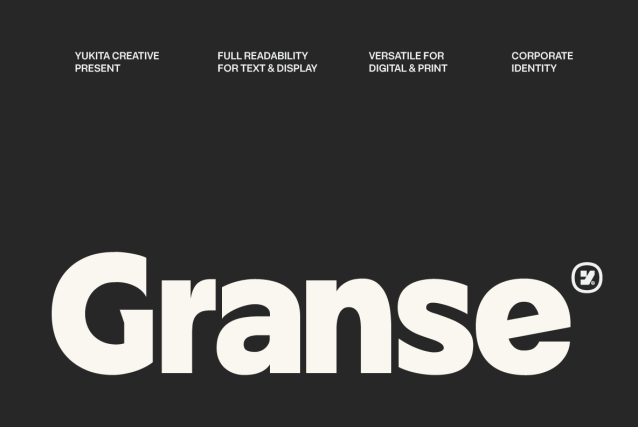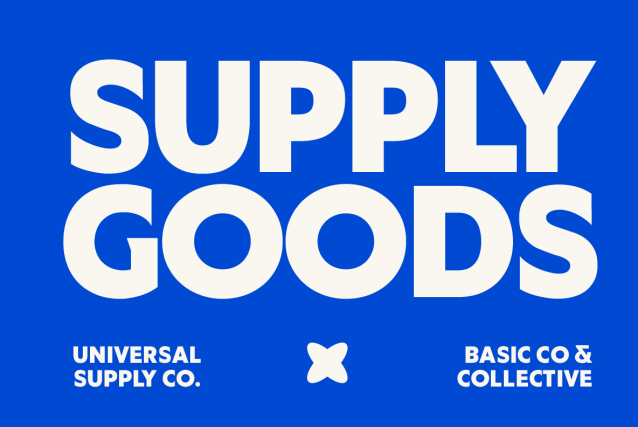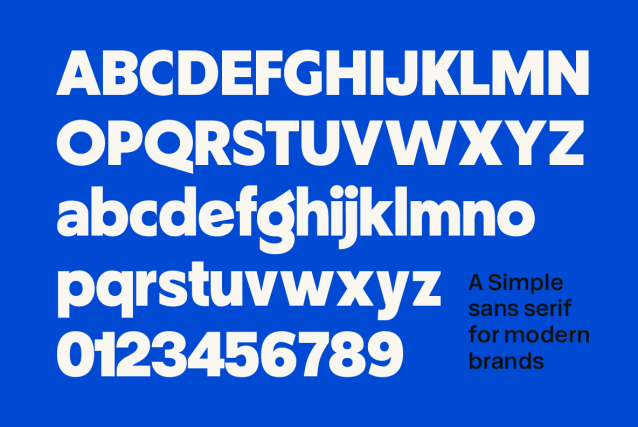
Granse is a modern sans serif font family designed to deliver a strong visual identity through its unique character and distinctive letterforms. Combining clean construction with subtle design details, Granse stands out from conventional sans serif typefaces while maintaining excellent readability and professional appeal.
Granse – Modern Sans Serif Font